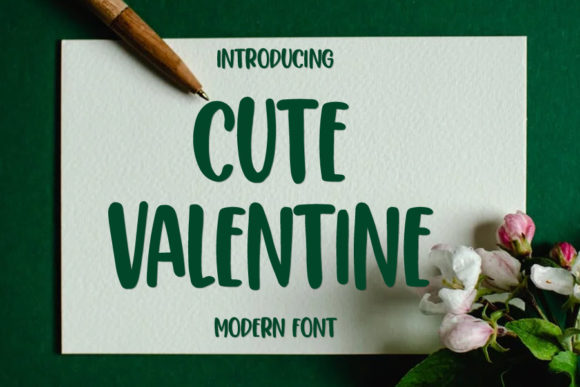
Step into the world of enchantment with Cute Valentine, a captivating script font that exudes charm and elegance. Each stroke dances across the canvas, evoking the warmth of handwritten love letters, making it an irresistible choice for heartfelt designs.
Unleash your imagination and let Cute Valentine ignite your creative spark. Whether you're crafting enchanting invitations, designing heartfelt greeting cards, or adding a touch of whimsy to social media posts, this font will elevate your creations to new heights of artistry.
With its graceful curves and playful spirit, Cute Valentine is destined to become a beloved addition to your design toolkit. It's a font that whispers secrets, shares laughter, and spreads joy with every letter it forms.
Embrace the power of Cute Valentine and let your designs blossom into masterpieces that captivate hearts and leave an unforgettable impression.